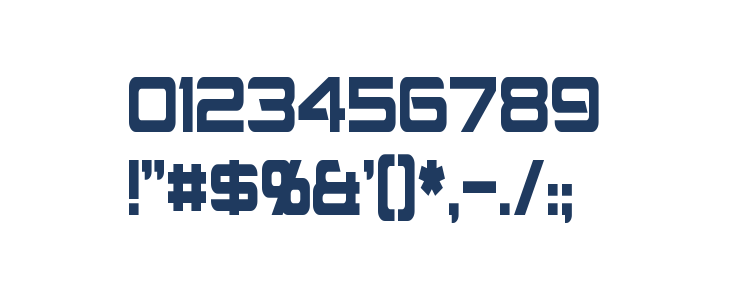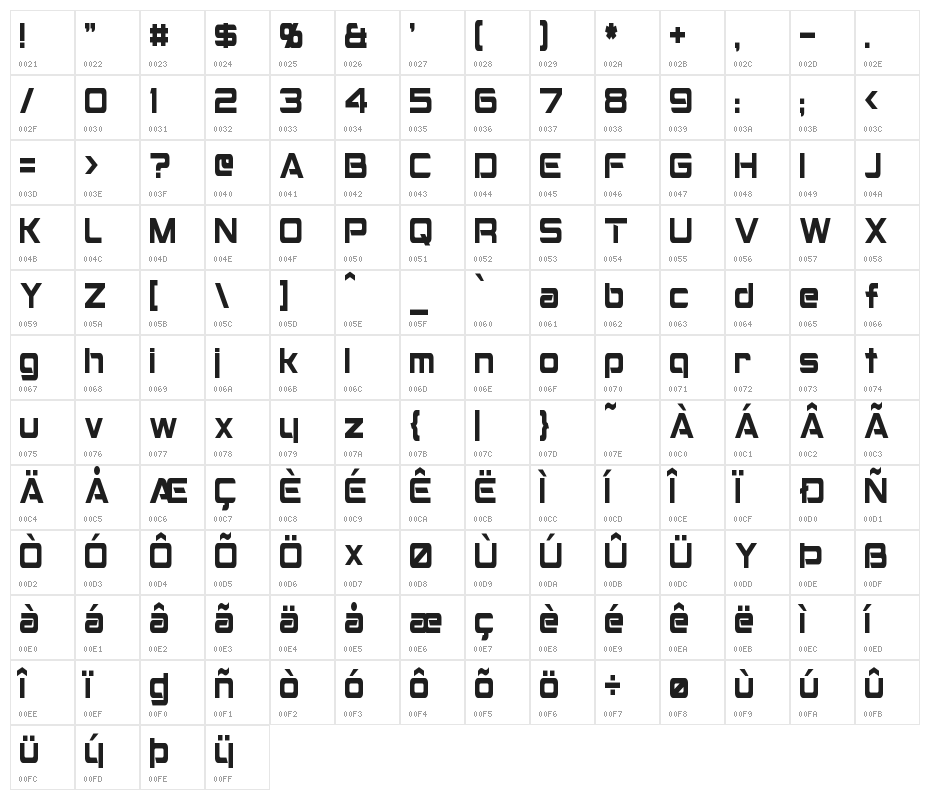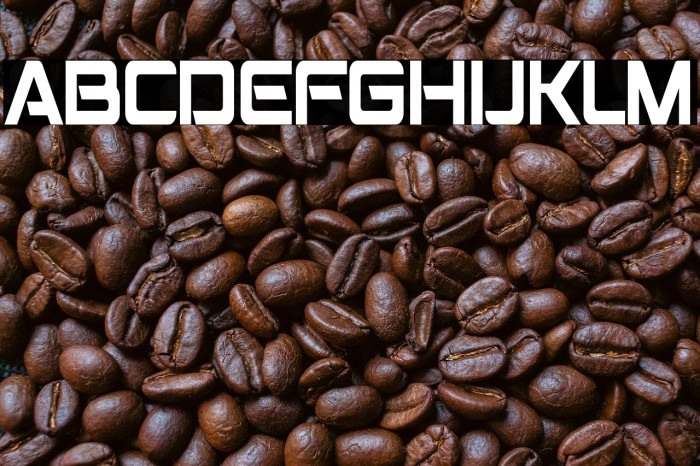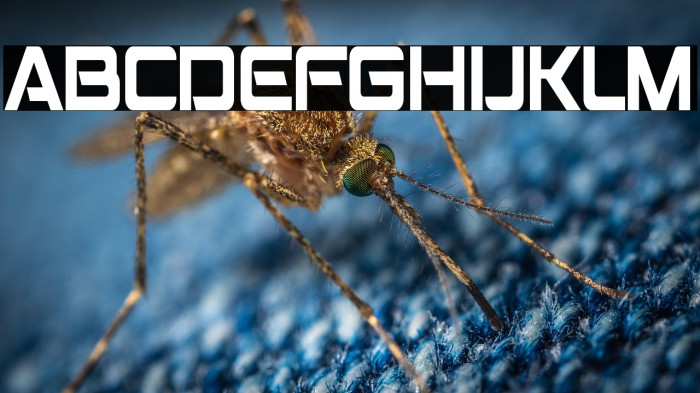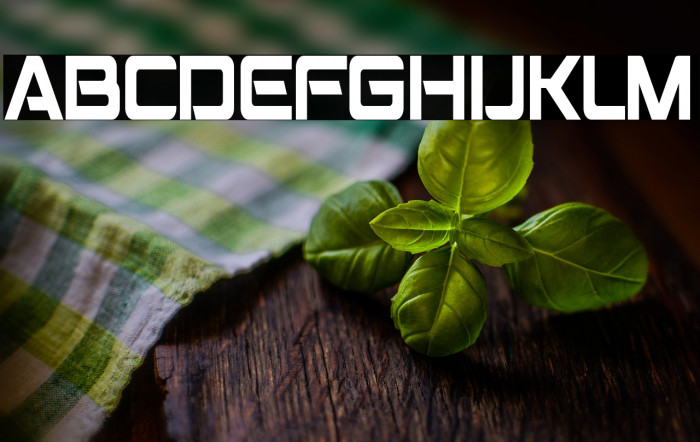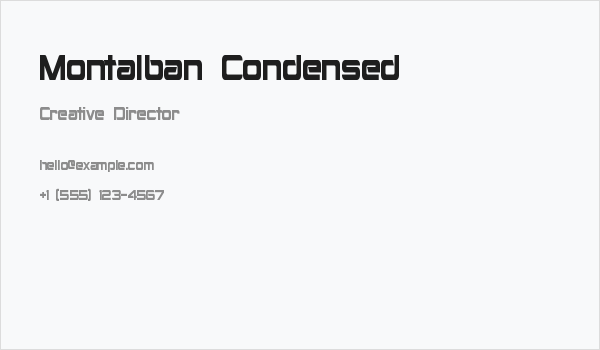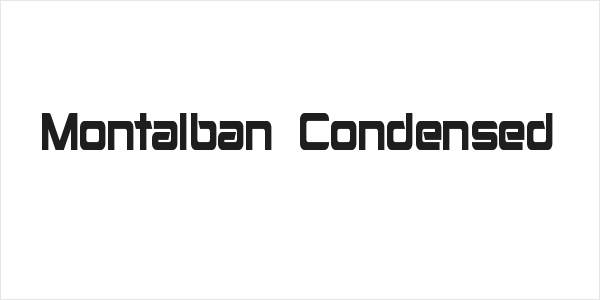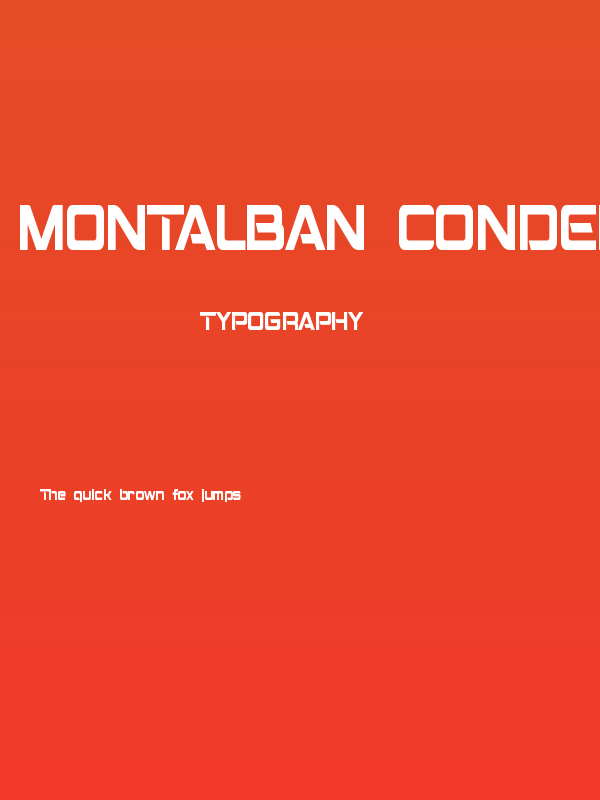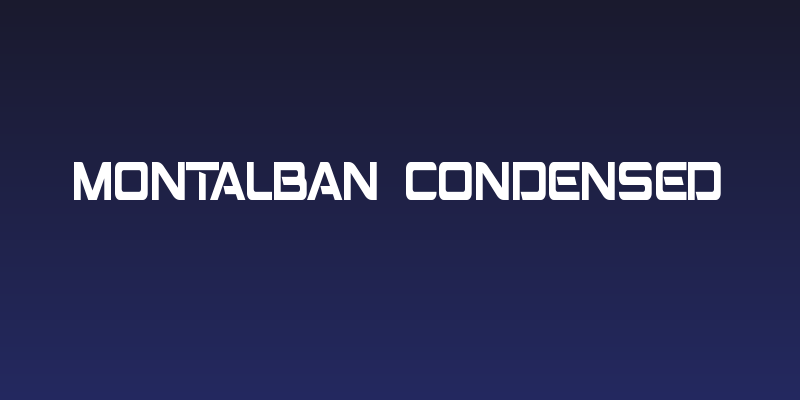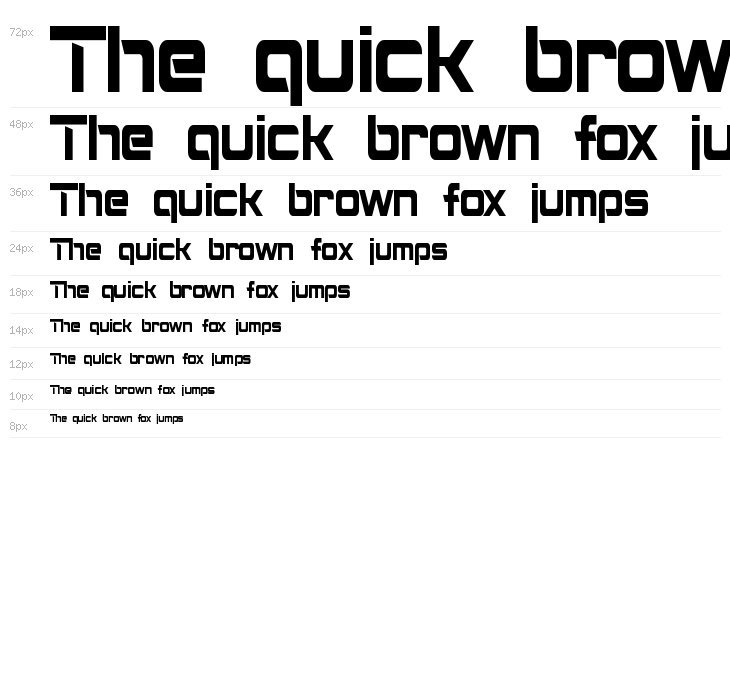
Montalban Condensed Font
Montalban Condensed Description
This font features a bold, geometric design with a distinctly modern aesthetic. The characters are condensed, giving them a compact appearance that maximizes space efficiency. The uppercase and lowercase letters maintain a consistent height, contributing to a uniform look. The strokes are thick and even, providing a strong visual impact. The angular shapes and sharp edges lend a futuristic feel, while the rounded corners soften the overall appearance. This font is highly legible, making it suitable for various applications where clarity is essential.
| Proposed Projects | Ideal for branding, advertising, posters, and any project requiring a modern and impactful typeface. |